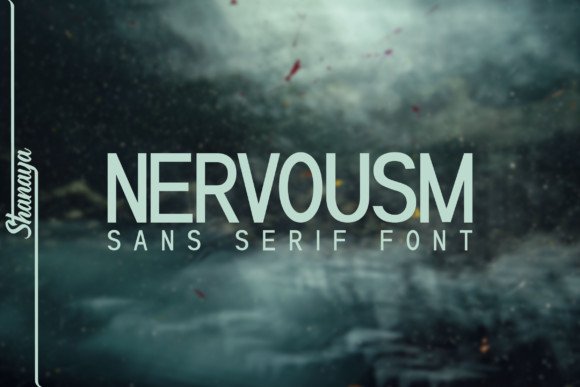
Nervousm Sans Serif Font Demo
Hello guys. This is a clean modern sans serif font. A beautiful and friendly typefamily that works great with family themes, elegant & classy material and professional settings! Introducing Nervousm Font. It’s designed and shared by Shanaya Creative. It’s a modern take on a classic condensed typographic style.
Simple geometry and humanist nuances add a layer of warmth to this classic sans serif typeface. It is So beautiful for quotes, logos, invitations, magazines, web, and more. With regular, it’s easy to use in multiple contexts and works super well for branding suites.